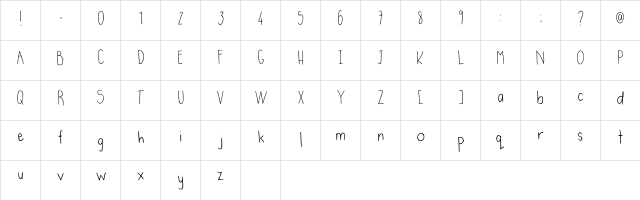
Handwrittening Regular
Design Context for Handwrittening Typeface
Handwrittening flows with the natural rhythm of handwritten lettering, making it ideal for designs that call for warmth and personal expression.
Font Pairing: Combine Handwrittening with a simple geometric sans for maximum contrast — the tension between flowing curves and clean structure is a classic typographic pairing.
Pro Tip: Pair Handwrittening with a clean sans-serif for supporting text. The contrast between fluid script and geometric structure creates an elegant typographic hierarchy.